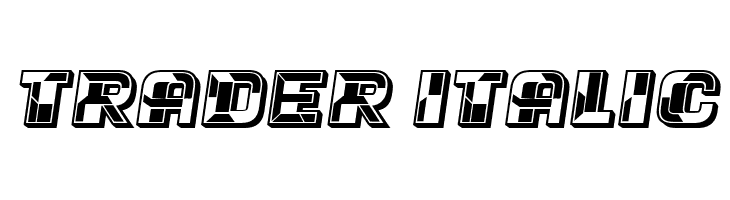
A bold, italic font with geometric outlines and striped interiors, offering a modern and dynamic look.
A bold, geometric font with a three-dimensional effect and strong visual impact.